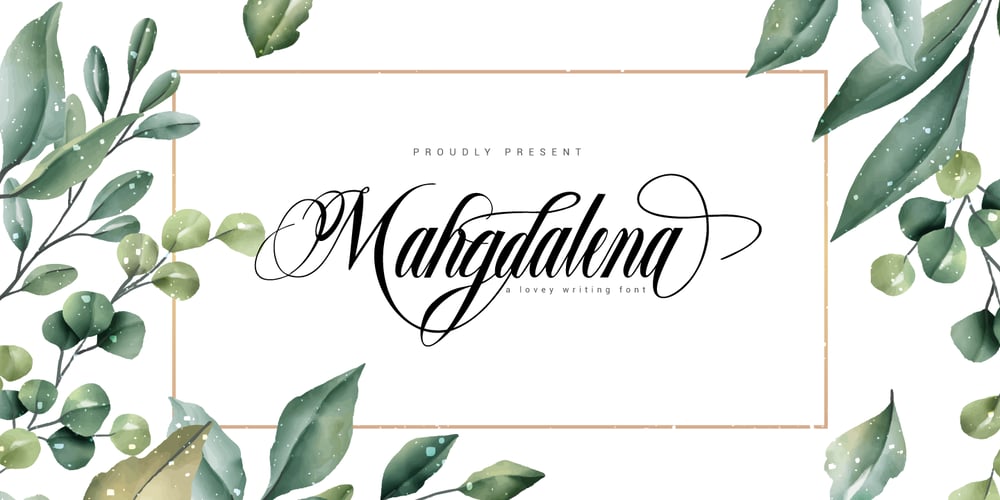
Mahgdalena Font Family was designed by Muhammad Suhery and published by Phonnastudio. Mahgdalena contains 1 styles and family package options. Mahgdalena is a beautiful, well-balanced, and refined script font. It has a classy, elegant, and modern look that can be used for logos, branding, invitations, stationery, wedding designs, social media posts, and much more!what you get:- Stylistic Alternate – a ligature- Number and Punctuation- Include Multilingual support Latin simple.